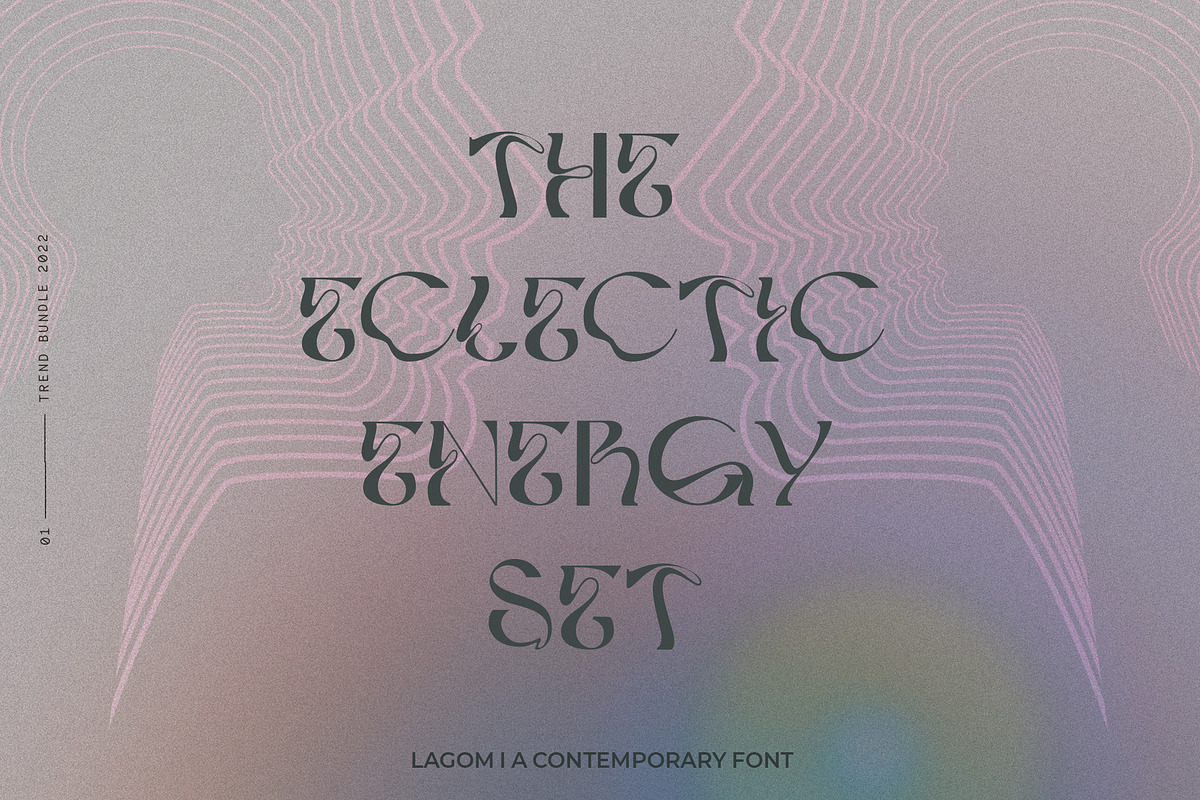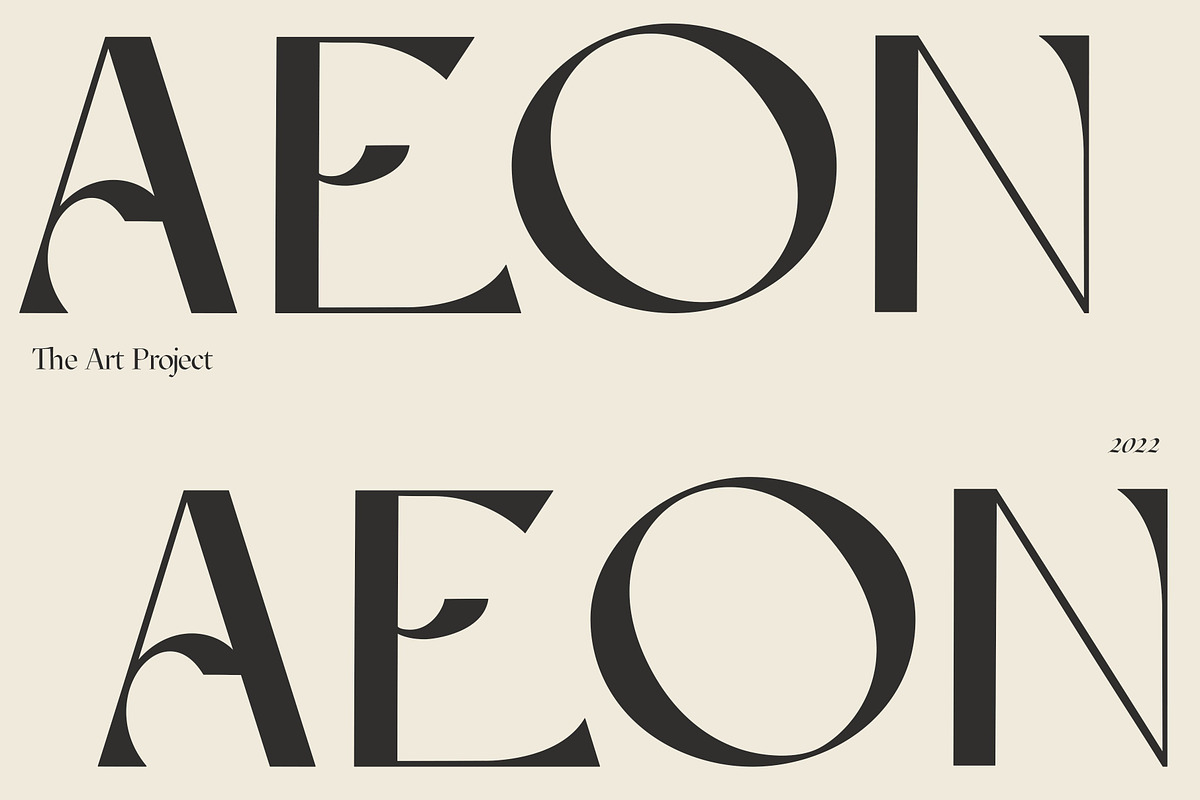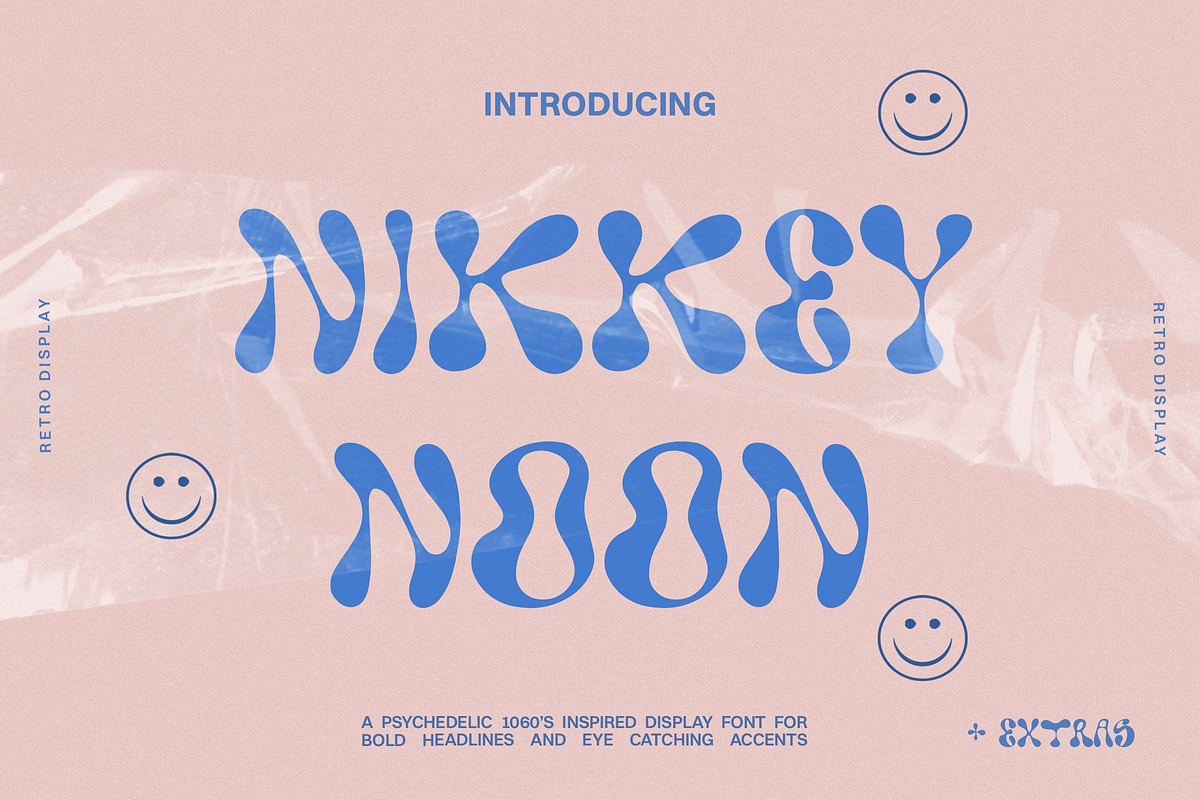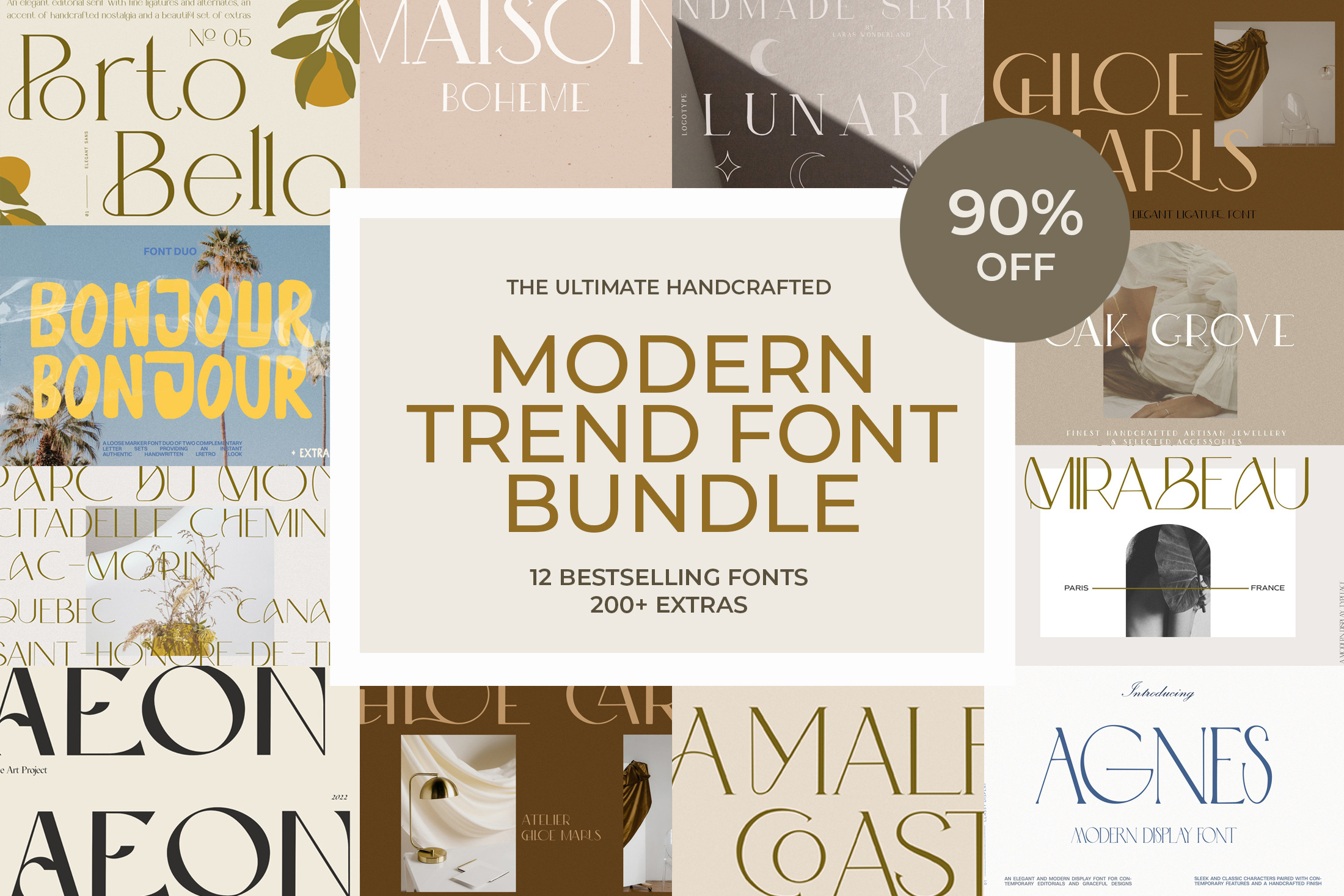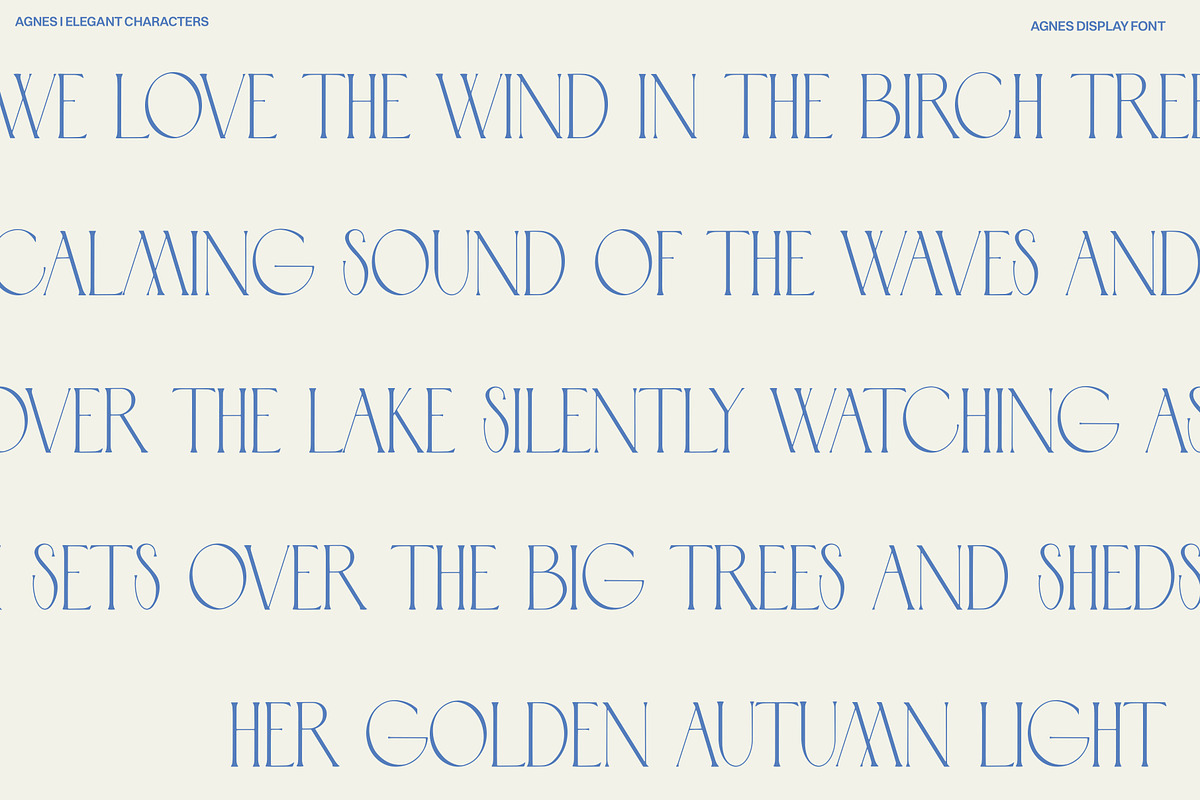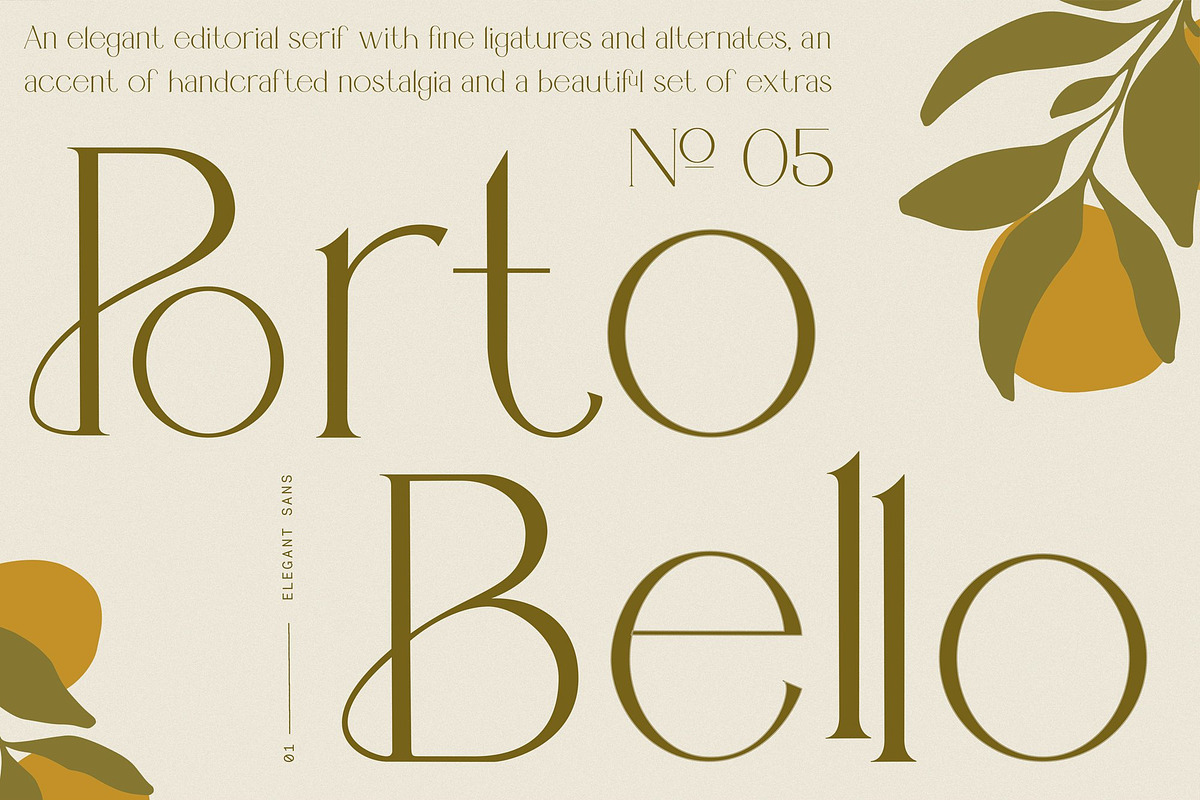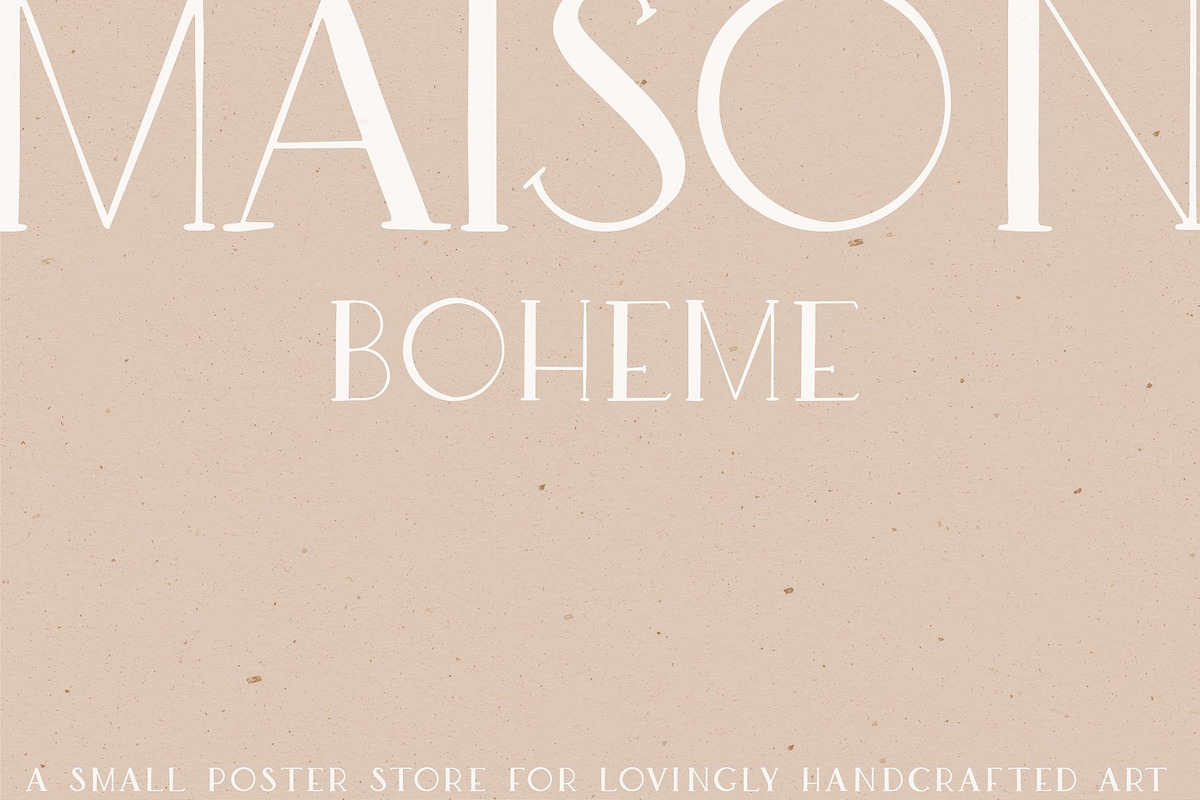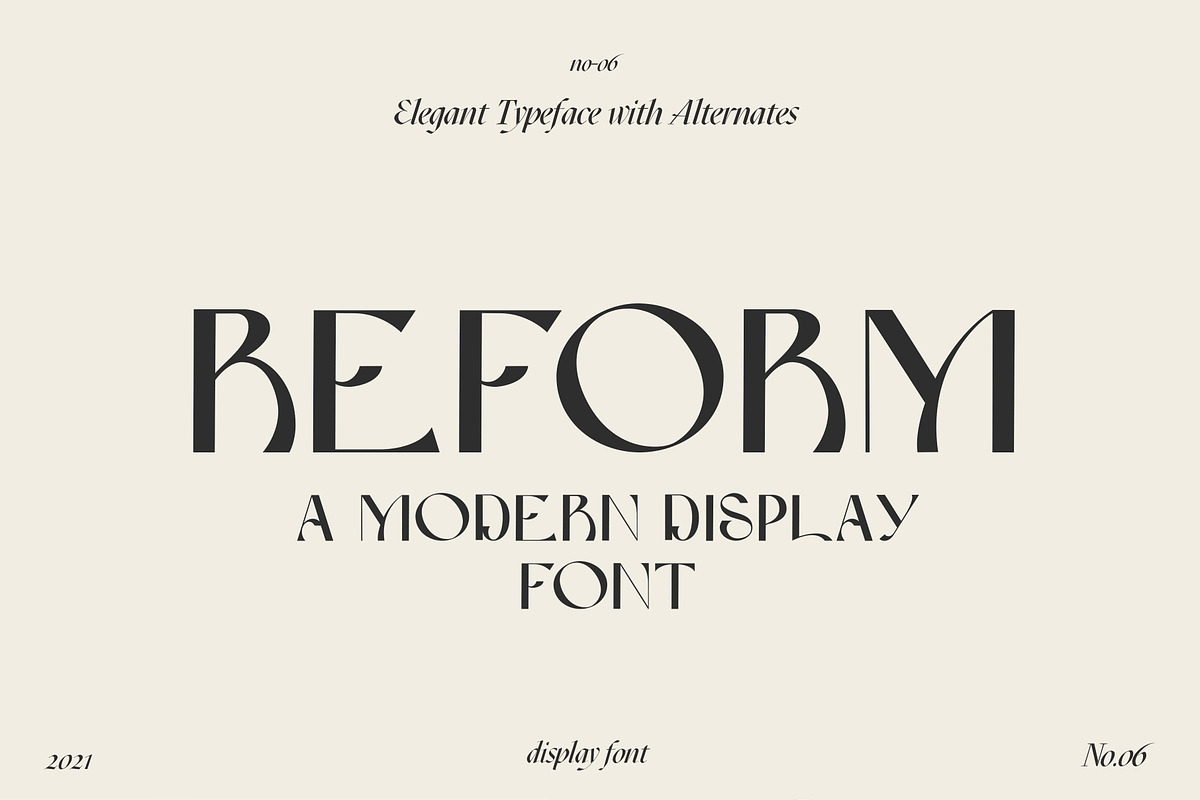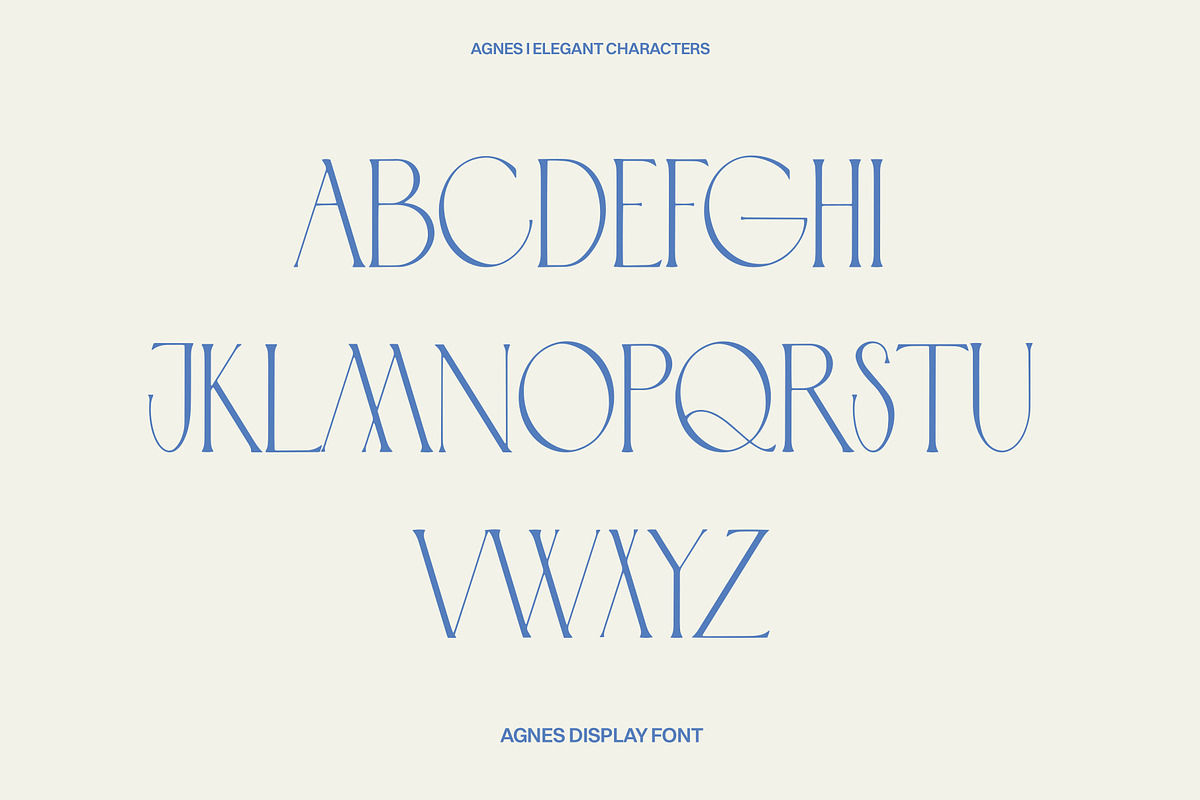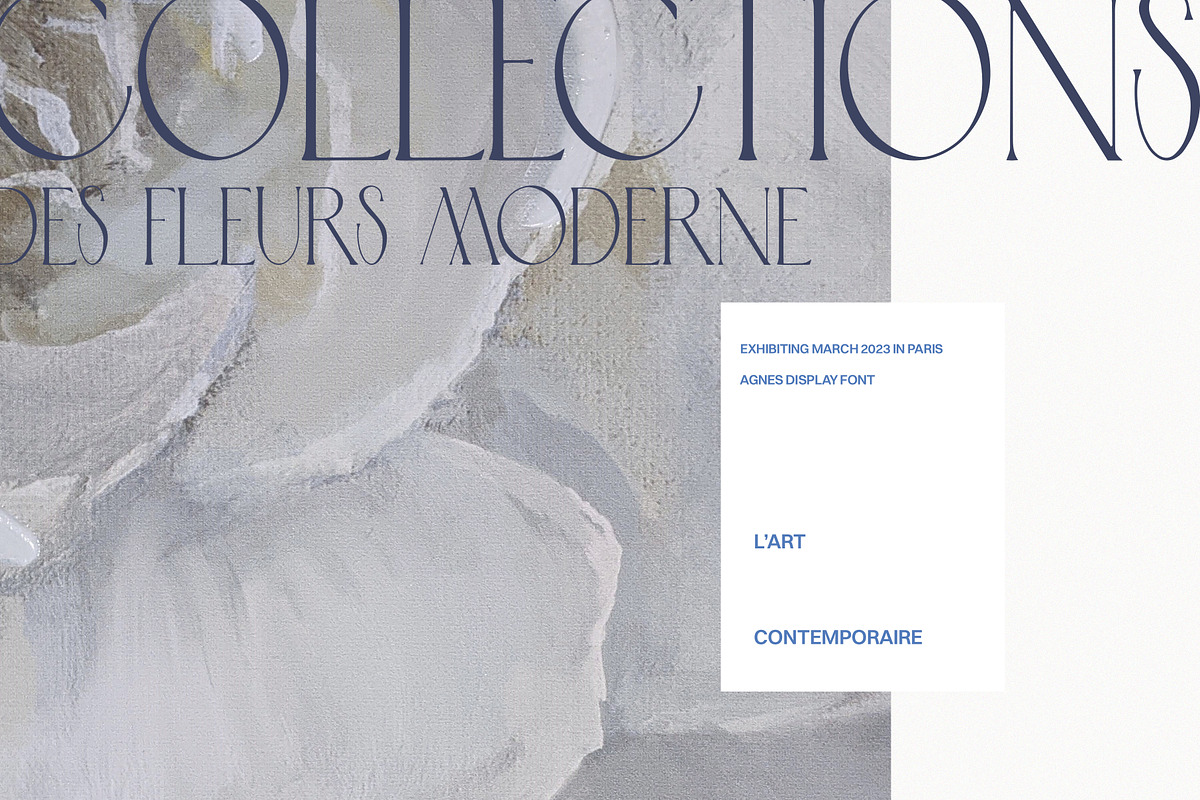
Modern Trend Font Bundle
This font bundle includes ALL fonts by Lara's Wonderland. 12 Bestselling fonts and hundreds of extras are all part of this collection!
This is your super versatile toolkit for handcrafted fonts. It includes 12 bestselling handmade display fonts that are suitable for contemporary designs. All of these fonts include various alternates and ligatures, making each and every font a true eye catcher.
The following fonts are included:
- Agnes (never launched before & exclusive classic display font)
- Lagom (exclusive font from the Trend Poster Bundle)